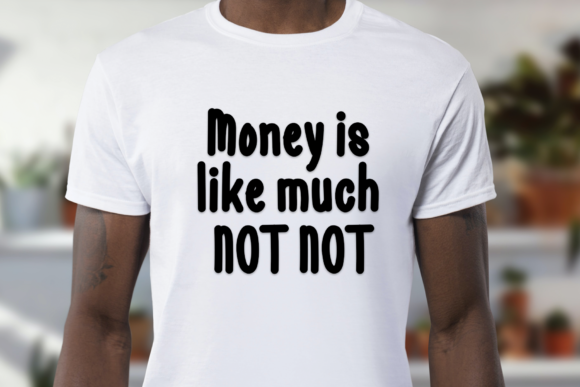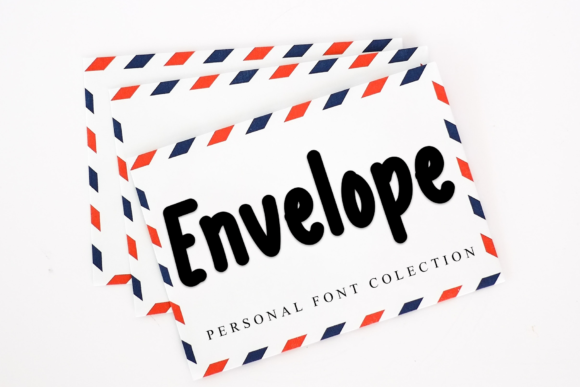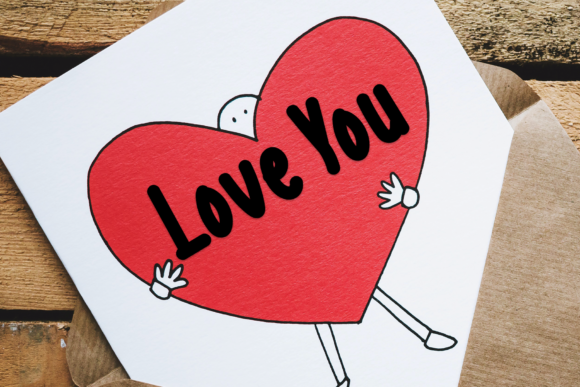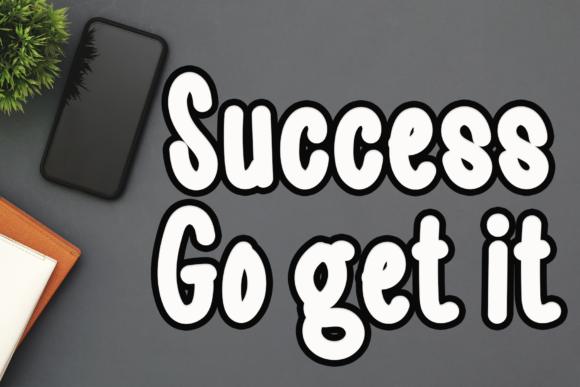
Introducing Family Clipart Font: A Unique and Quirky Display Font
Are you a designer or crafter looking for a font that can add a touch of personality to your creations? Look no further than Family Clipart Font, a one-of-a-kind display font that’s perfect for a wide range of projects. In this article, we’ll take a closer look at what makes Family Clipart Font so special and how it can elevate your designs.
A Unique and Natural Font
Family Clipart Font is a unique and natural font that’s perfect for designers and crafters who want to add a personal touch to their work. The font features a quirky and charming design that’s reminiscent of hand-drawn clipart. With its natural and effortless feel, Family Clipart Font is ideal for creating a wide range of projects, from invitations and greeting cards to posters and social media graphics.
No Matter the Topic
One of the best things about Family Clipart Font is its versatility. No matter the topic or theme of your project, this font will fit right in. Whether you’re creating a design for a birthday party, a wedding, or a holiday celebration, Family Clipart Font will add a touch of personality and whimsy that’s sure to delight. The font’s quirky design makes it perfect for a wide range of projects, from playful and fun to elegant and sophisticated.
An Incredibly Valuable Asset
Family Clipart Font is an incredibly valuable asset to have in your font library. With its unique and natural design, this font has the potential to elevate any creation and take it to the next level. Whether you’re a professional designer or a crafter working on a personal project, Family Clipart Font is a font that you’ll want to reach for again and again.
Family Clipart Font is perfect for designers and crafters who want to add a personal touch to their work. The font’s quirky and charming design makes it ideal for creating a wide range of projects, from digital designs to handmade crafts. Whether you’re creating a design for a client or working on a personal project, Family Clipart Font is a font that will help you stand out from the crowd.
Key Features of Family Clipart Font
- Unique and natural design: Family Clipart Font features a one-of-a-kind design that’s reminiscent of hand-drawn clipart.
- Quirky and charming: The font’s quirky and charming design makes it perfect for creating a wide range of projects, from playful and fun to elegant and sophisticated.
- Versatile: Family Clipart Font is perfect for a wide range of projects, no matter the topic or theme.
Tips for Using Family Clipart Font
Here are a few tips for using Family Clipart Font in your designs:
- Use it for headings and titles: Family Clipart Font is perfect for headings and titles, where its quirky and charming design can really shine.
- Pair it with other fonts: Family Clipart Font pairs well with a wide range of other fonts, so don’t be afraid to experiment and find the perfect combination for your project.
- Use it for digital and print projects: Family Clipart Font is perfect for both digital and print projects, from social media graphics to invitations and greeting cards.
Family Clipart Font is a unique and quirky display font that’s perfect for designers and crafters who want to add a personal touch to their work. With its natural and effortless feel, this font is ideal for creating a wide range of projects, from invitations and greeting cards to posters and social media graphics. Whether you’re a professional designer or a crafter working on a personal project, Family Clipart Font is a font that you’ll want to reach for again and again.